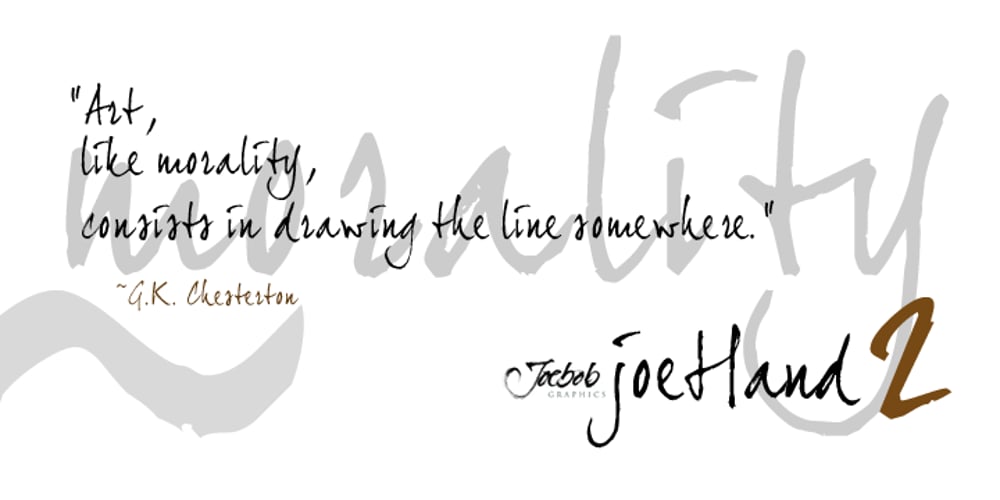
JoeHand 2
JoeHand 2 font
JoeHand 2 Font Family was designed by Jeroen “Joebob” van der Ham and published by JOEBOB graphics. JoeHand 2 contains 1 styles and family package options. Wild and fast handwritten upright script font with a little connectivity, and a lot of pace.